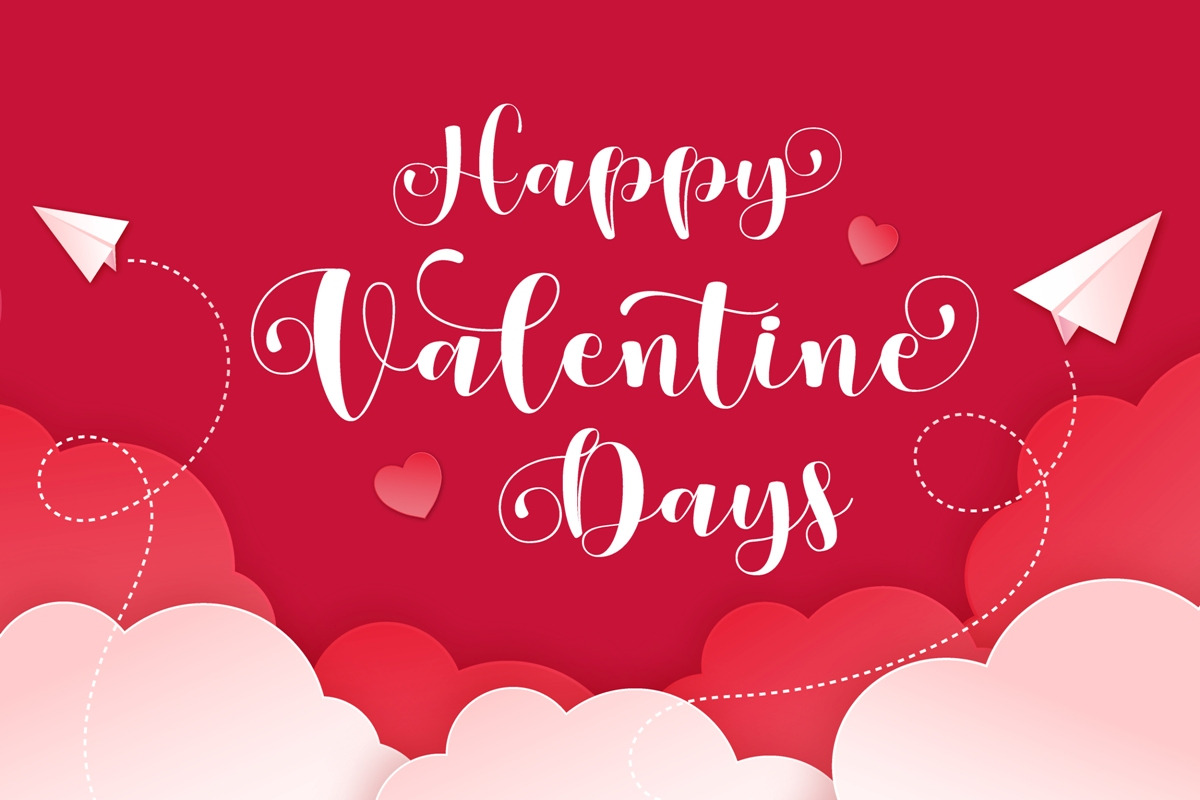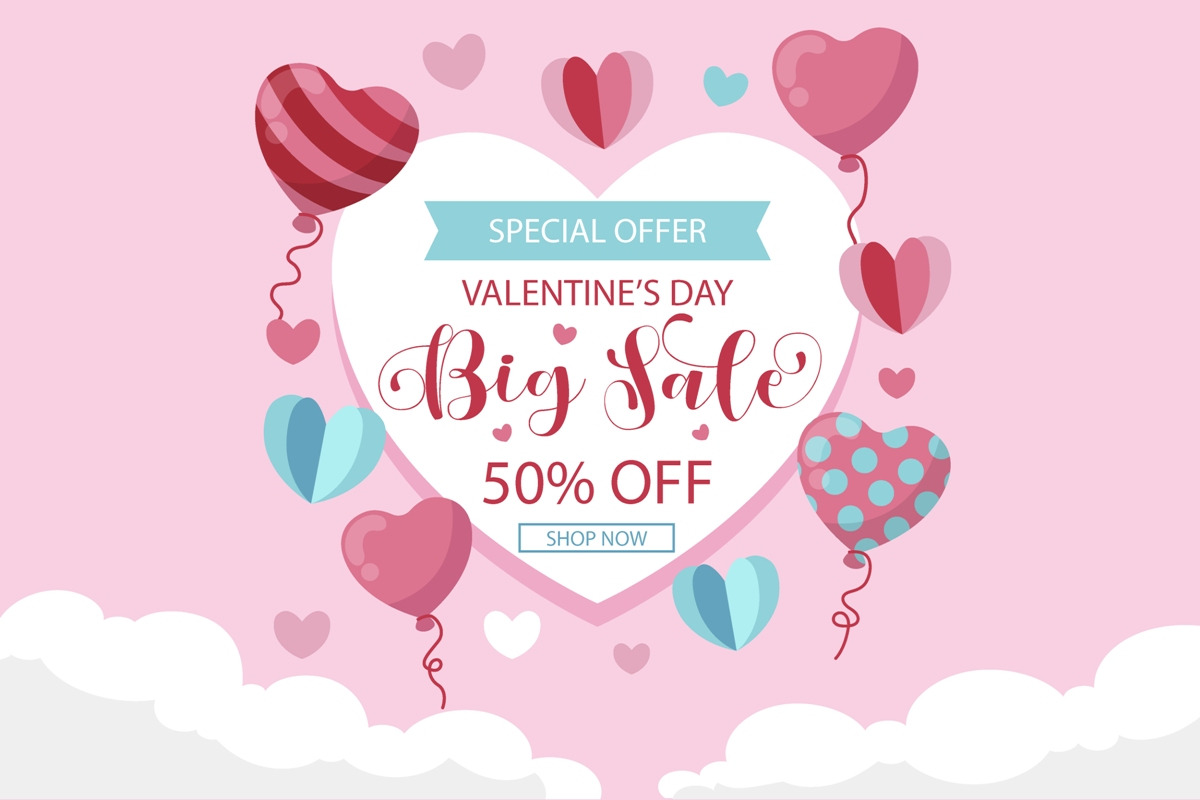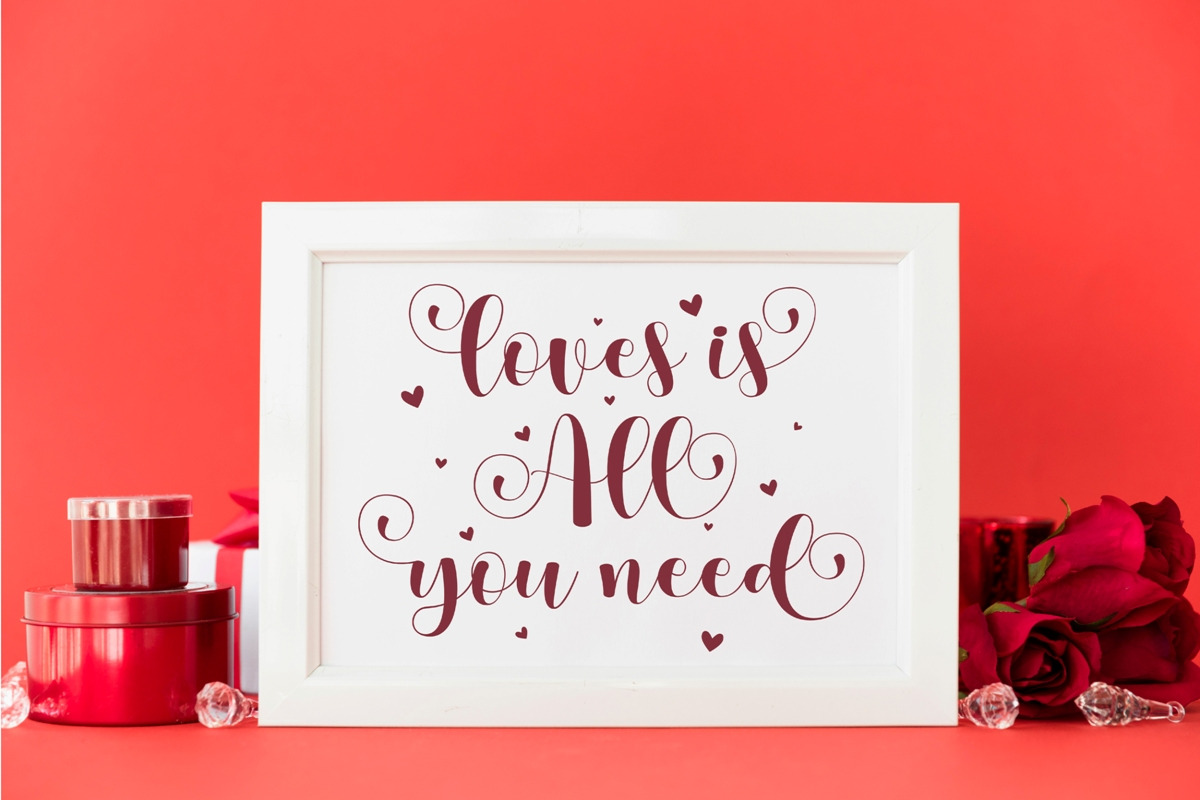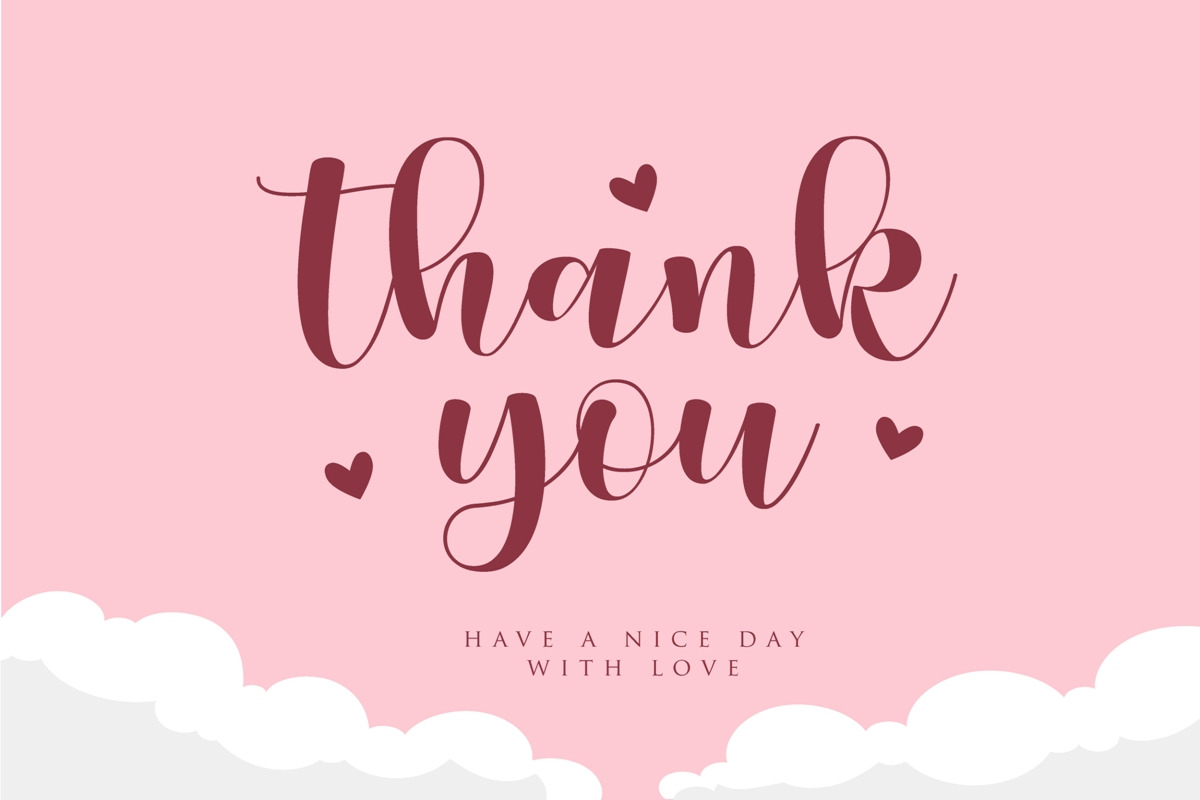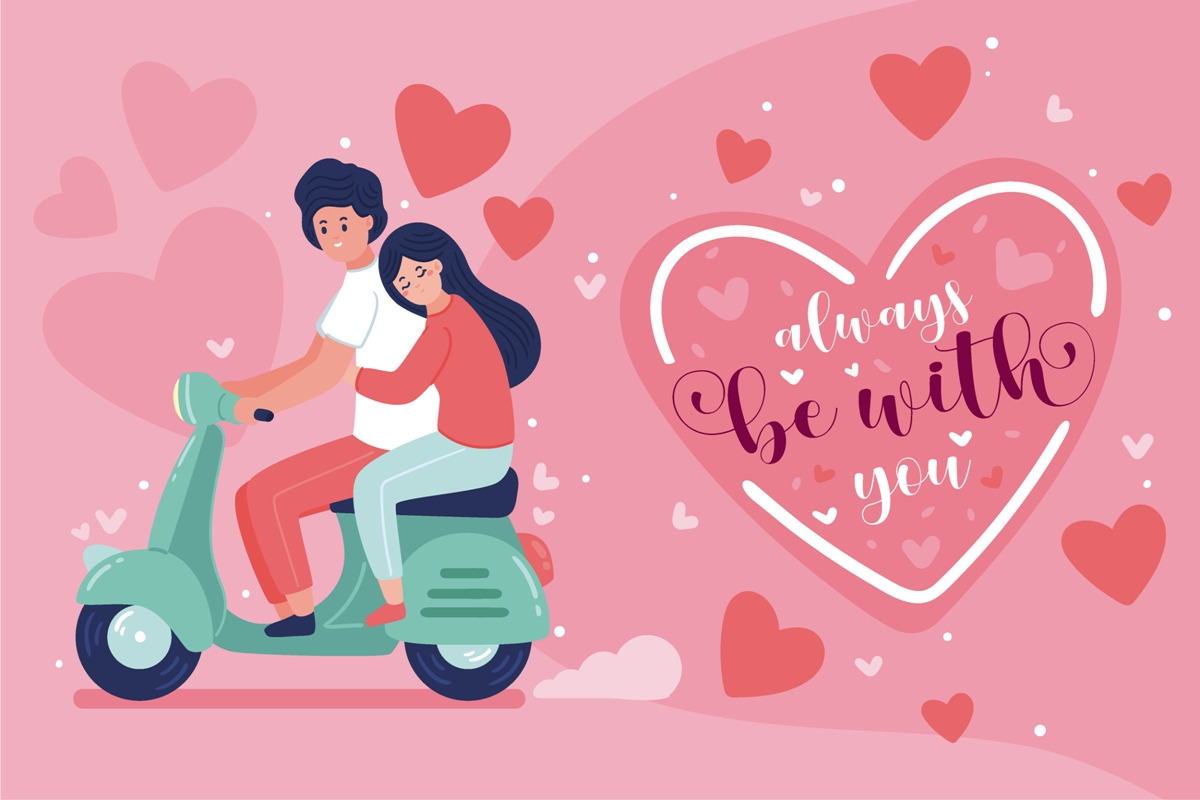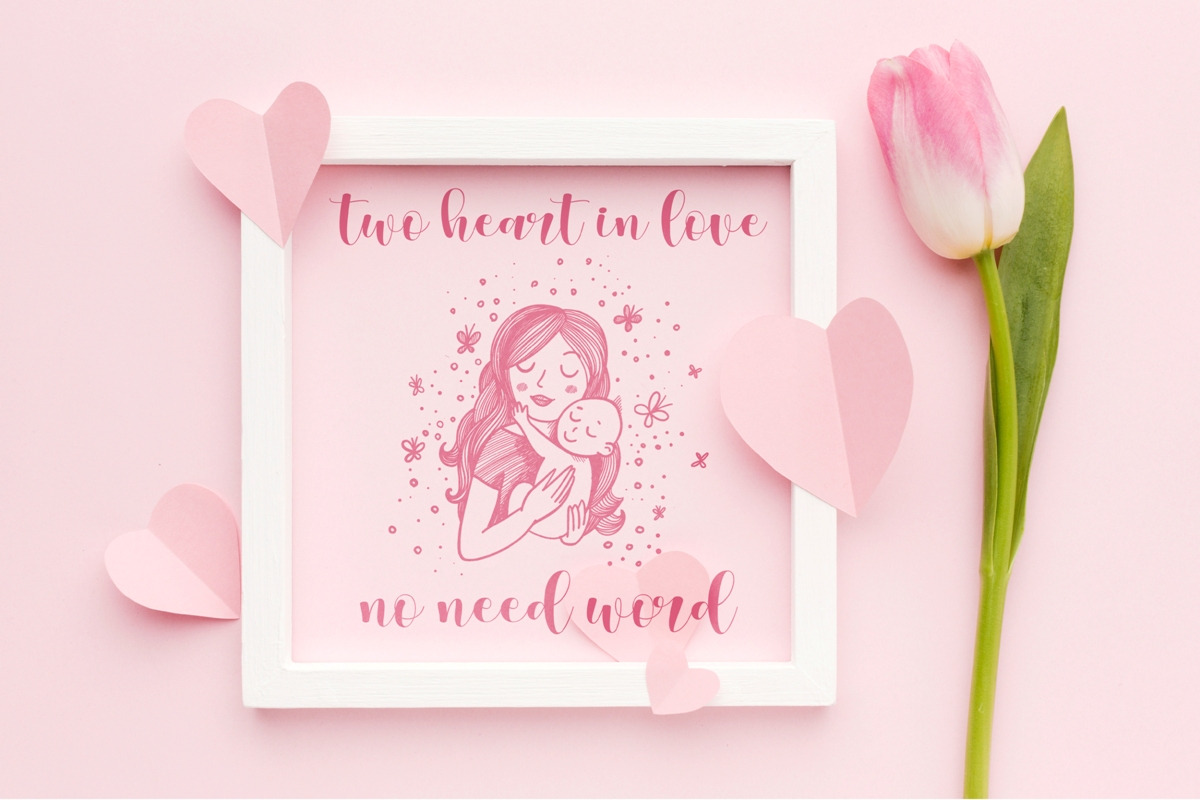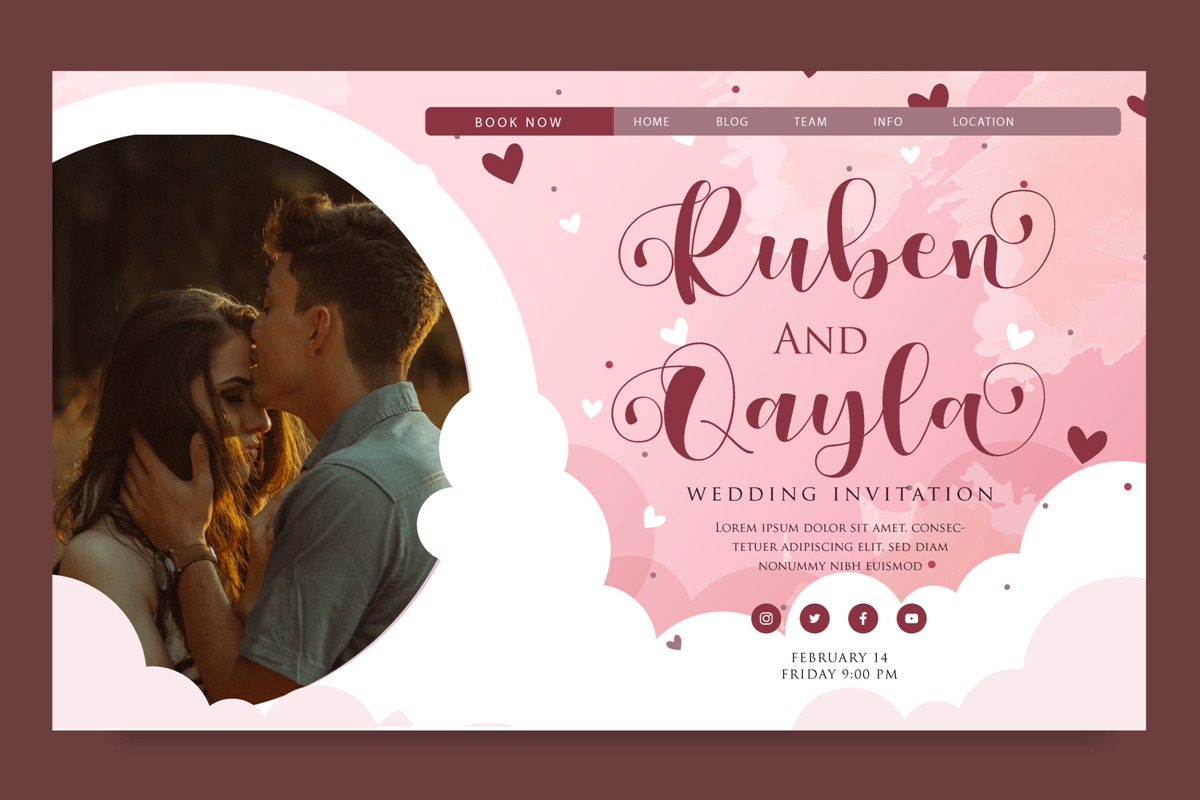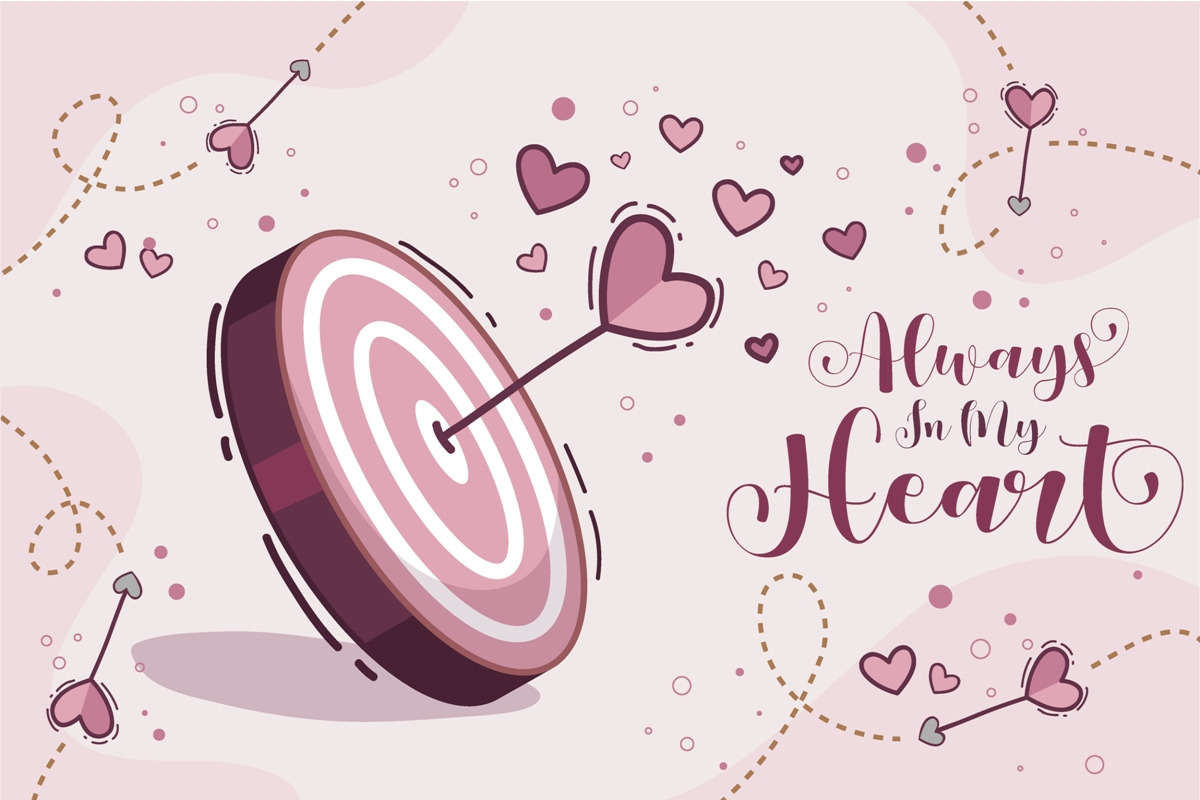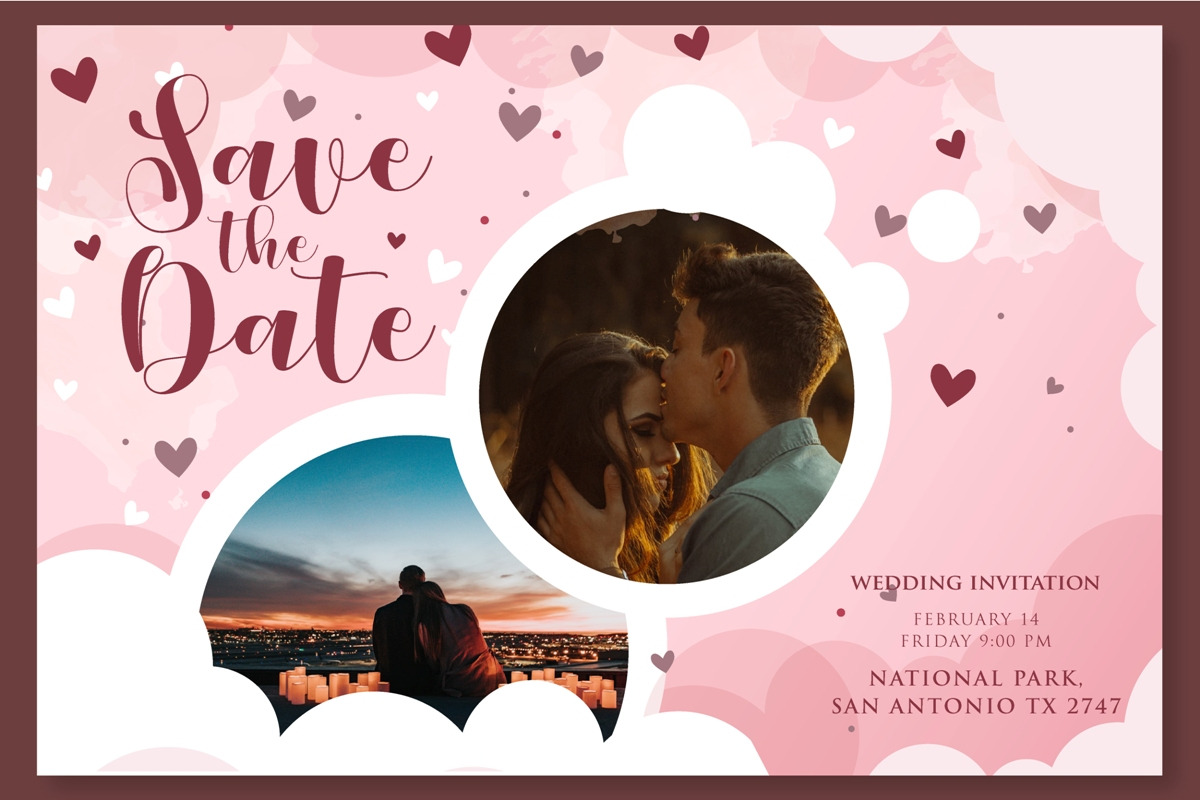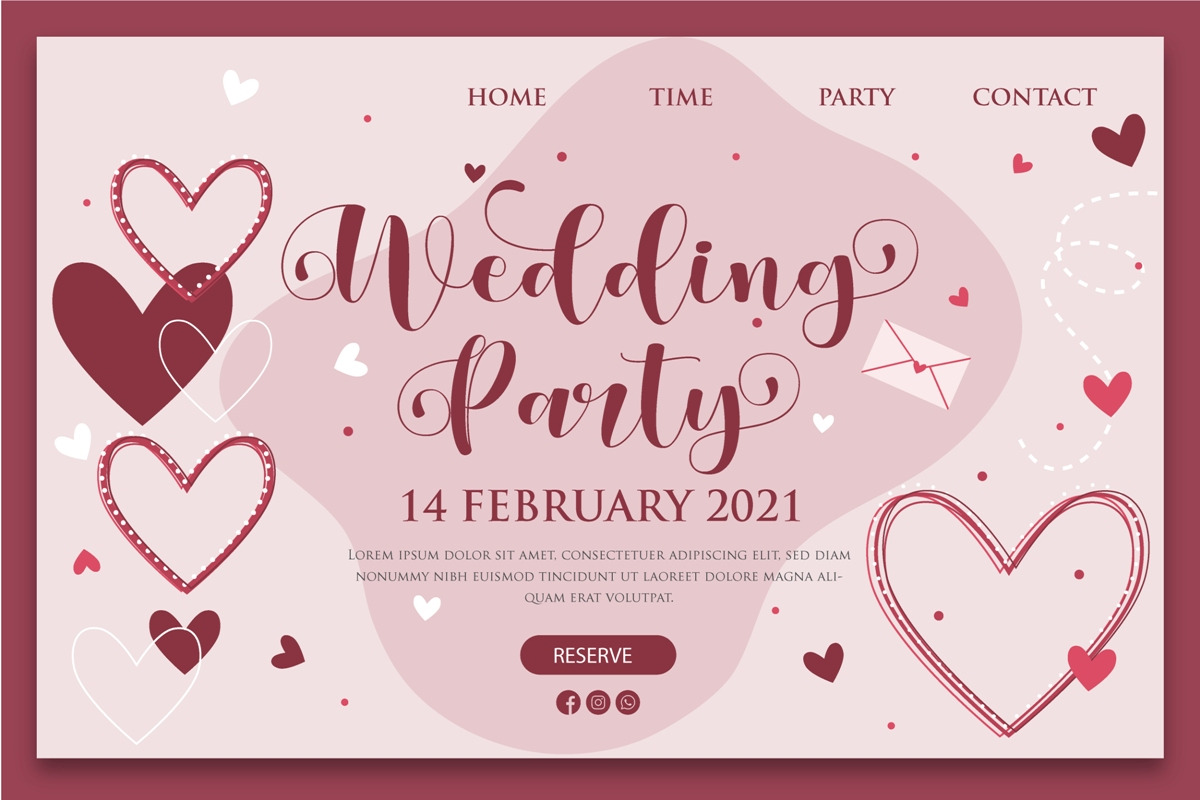
Helo Angel | Lovely Script Font
Introducing New Font : Helo Angel - A Lovely Script Fonts
Helo Angel - A Lovely Script Fonts will work perfectly for fashion, e-commerce brands, trend blogs, wedding boutiques or any business that wants to appear upscale and chic.
Helo Angel - A Lovely Script Fonts also Suitable for Logo, greeting cards, quotes, posters, branding, name card, stationary, design title, blog header, art quote, typography, art, modern envelope lettering or book design, happening style like handdrawn design or watercolor design theme, craft design, any DIY project, book title, or any purpose to make your art/design project look pretty and trendy.